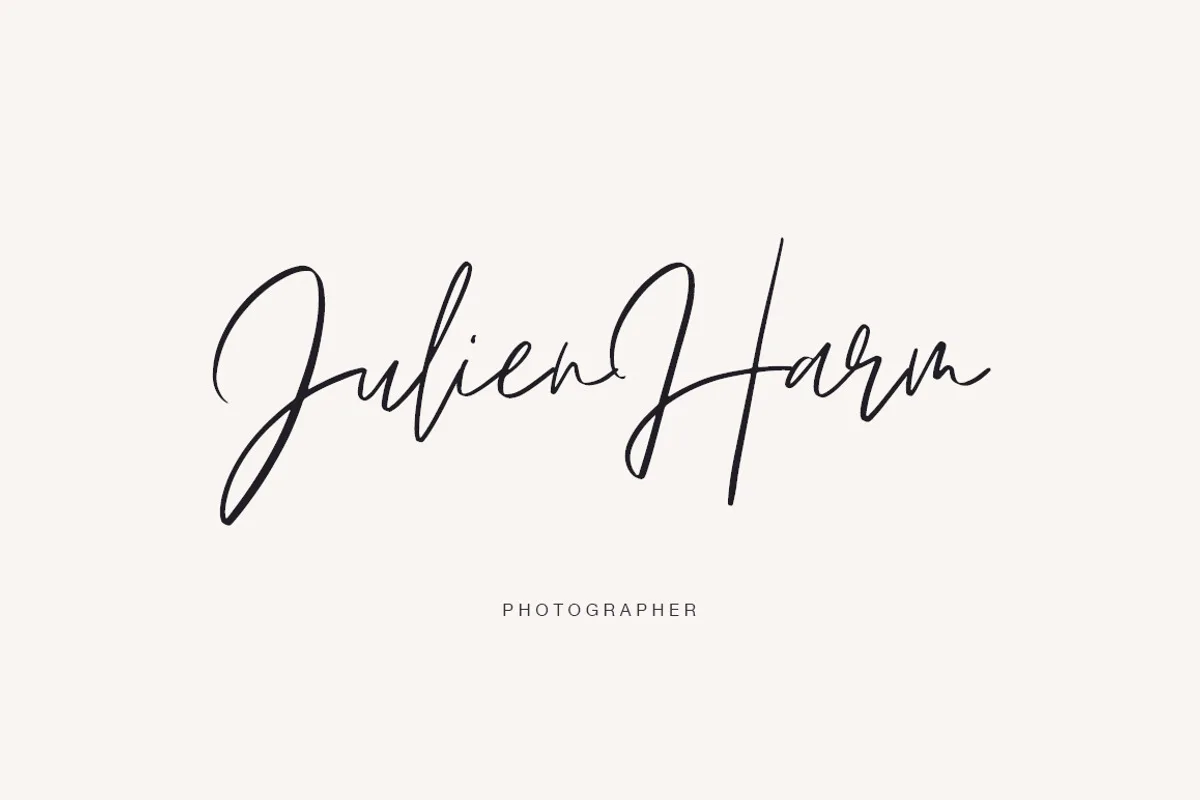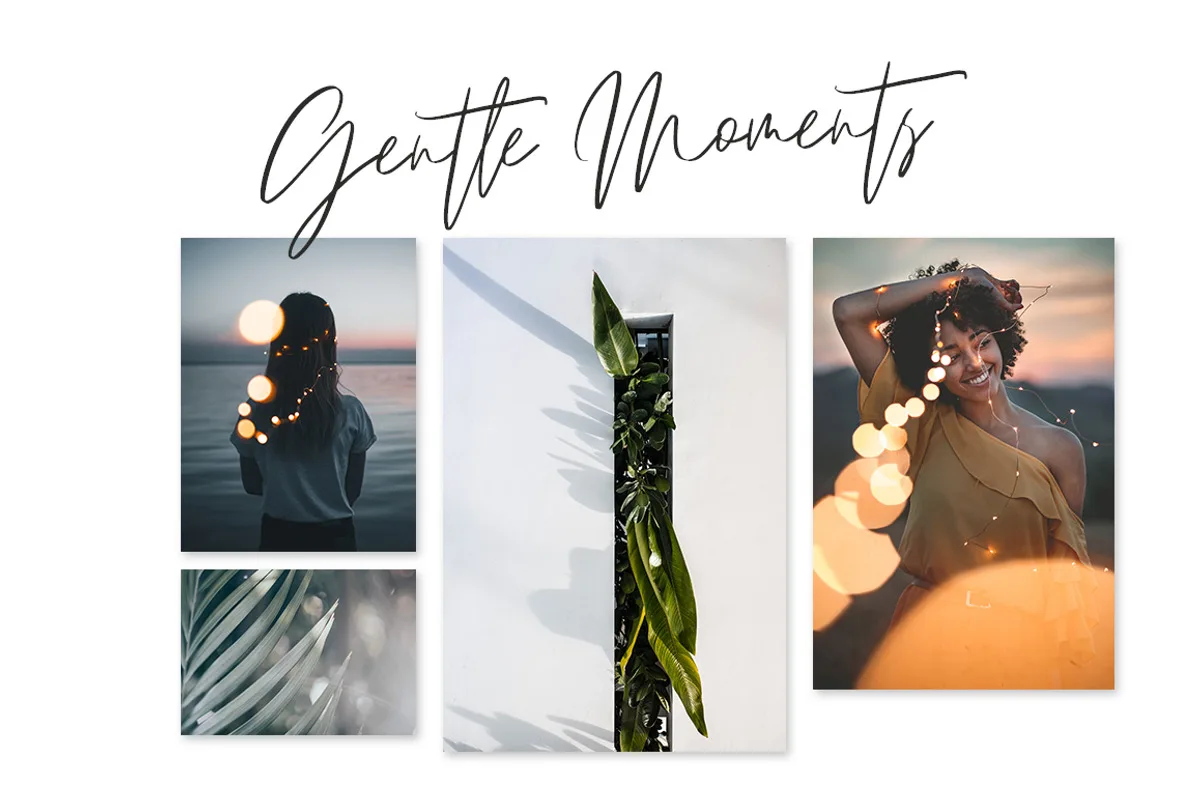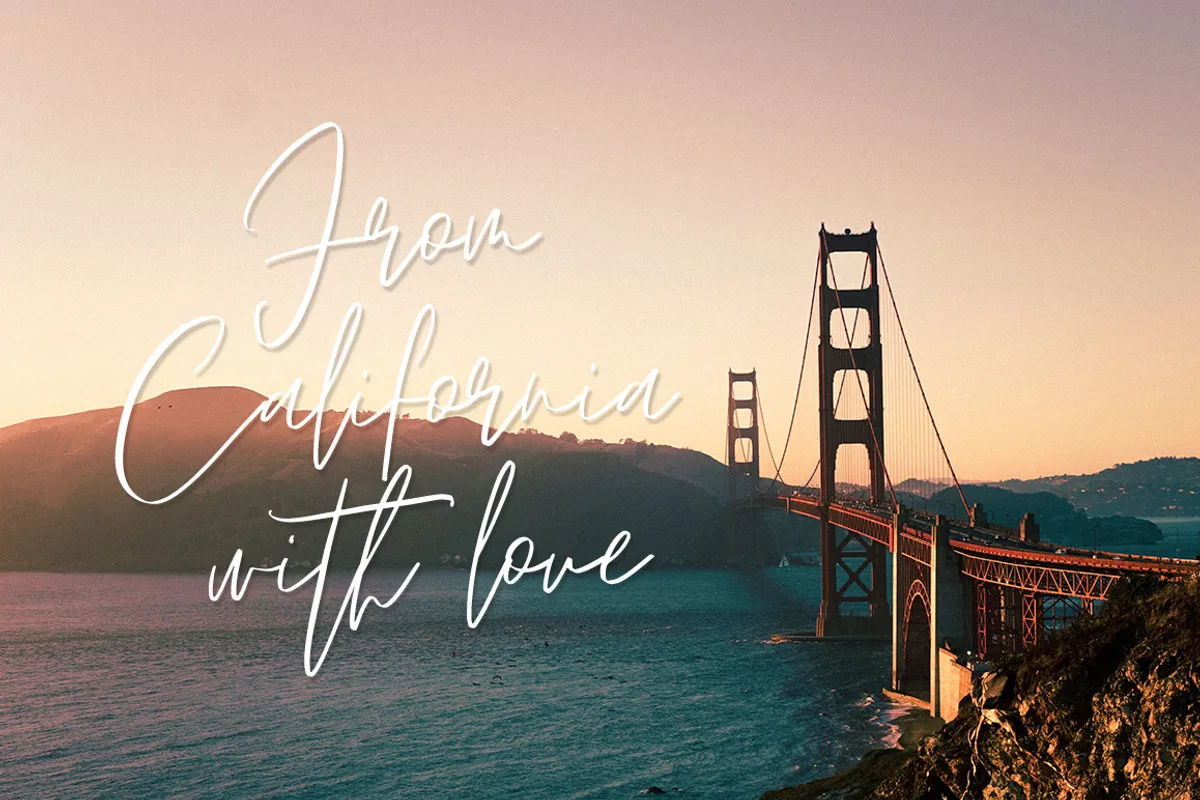
Meet my new font Emitha DUO! Emitha includes full set of lovely uppercase and lowercase letters, multilingual symbols, numerals, punctuation and ligatures. Also it includes: large set of Swashes and Strokes. This is so perfect for invitations, monograms etc